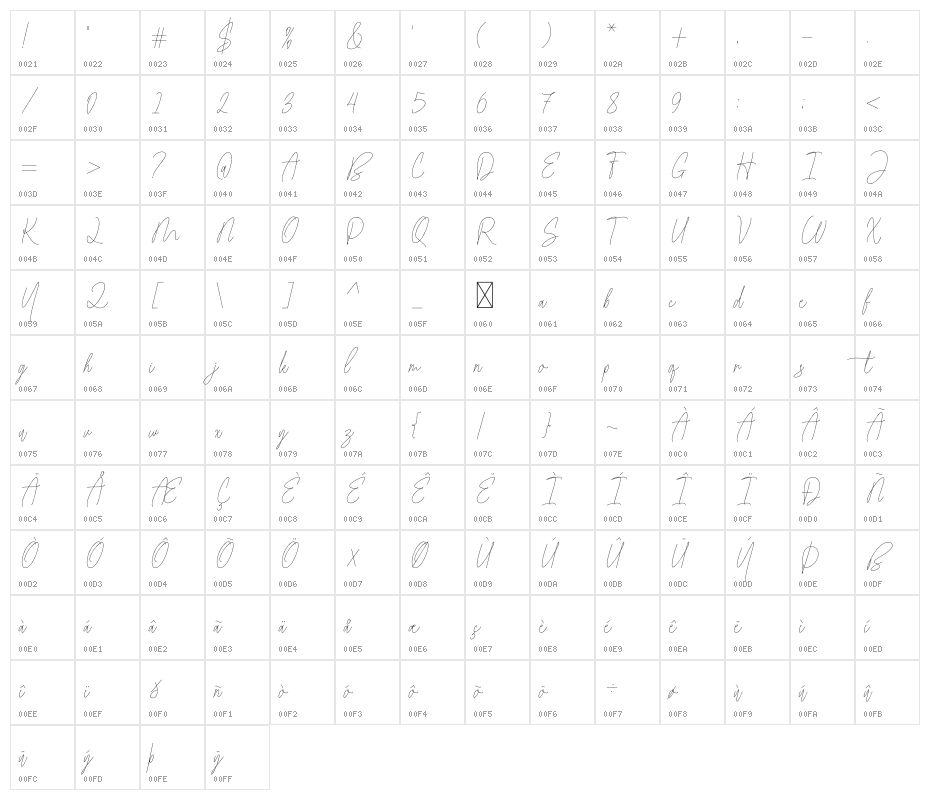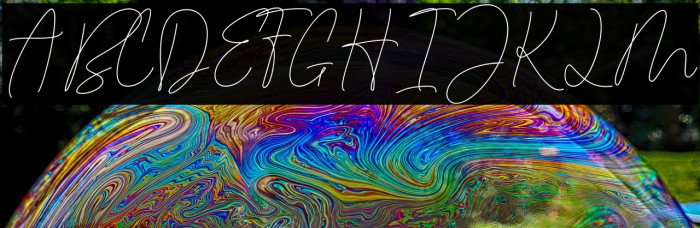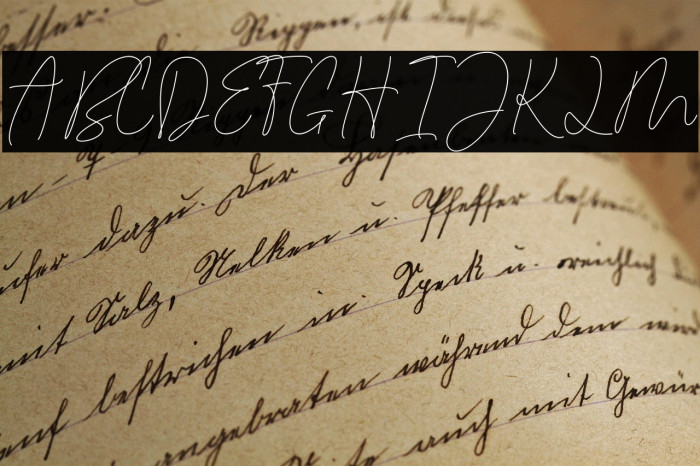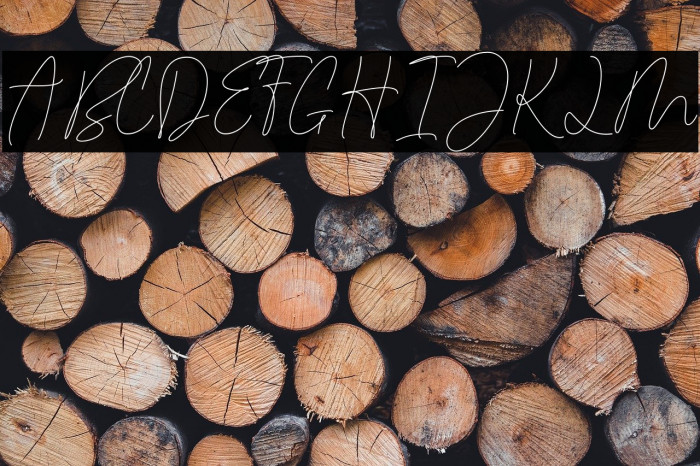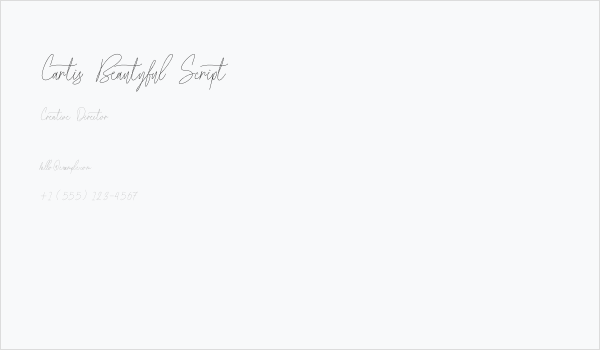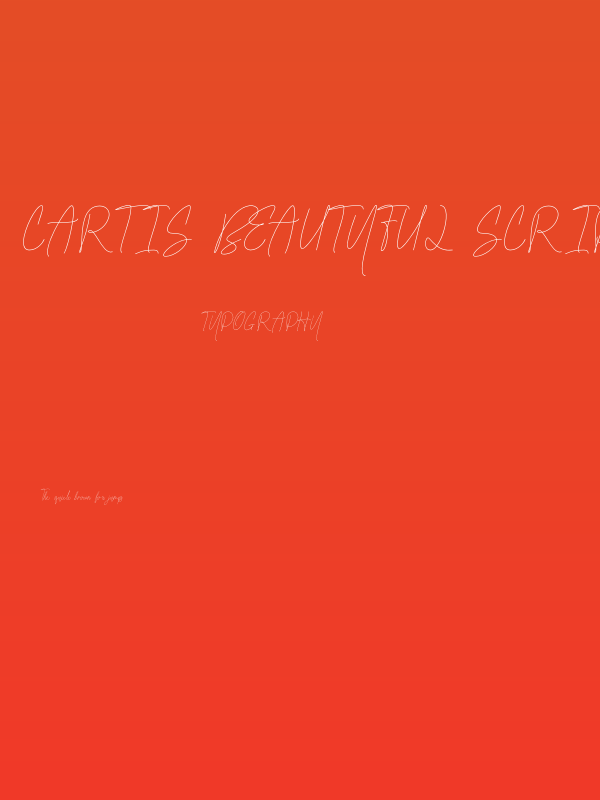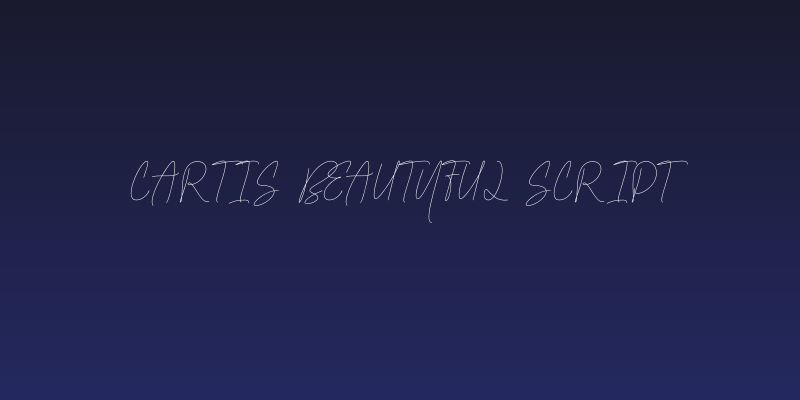
Cartis Beautyful Script Font
Cartis Beautyful Script Description
This elegant script font features a flowing, cursive style with delicate, thin strokes that give it a graceful and sophisticated appearance. The characters are connected, mimicking the fluidity of natural handwriting, which adds a personal and artistic touch. The uppercase letters are slightly more ornate, with extended loops and swashes, while the lowercase letters maintain a consistent, smooth flow. The numerals and special characters complement the overall aesthetic, maintaining the same thin, elegant lines. This font is perfect for adding a touch of elegance and refinement to any design project.
| Overall Style | Elegant, Artistic |
| Use Case | Logos, Invitations, Personal Stationery |
| Proposed Projects | Ideal for wedding invitations, elegant branding, personal stationery, and artistic projects. |